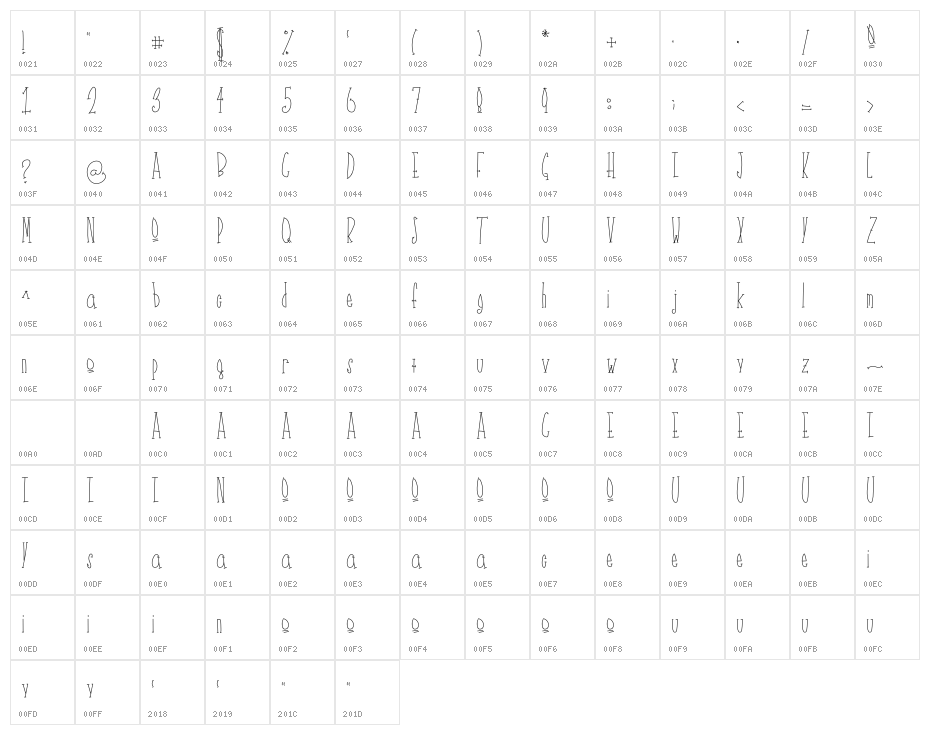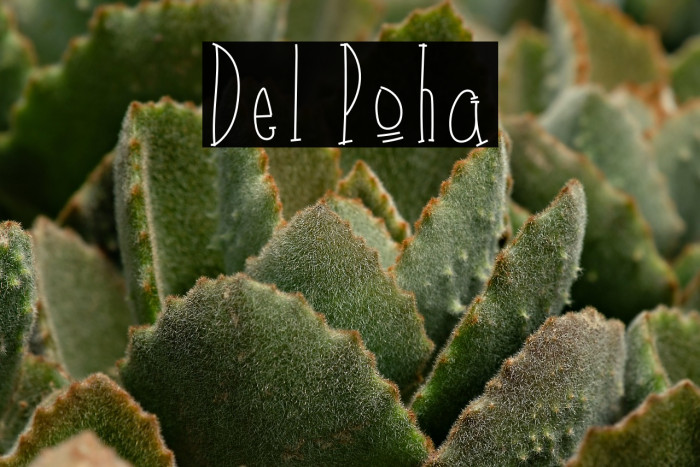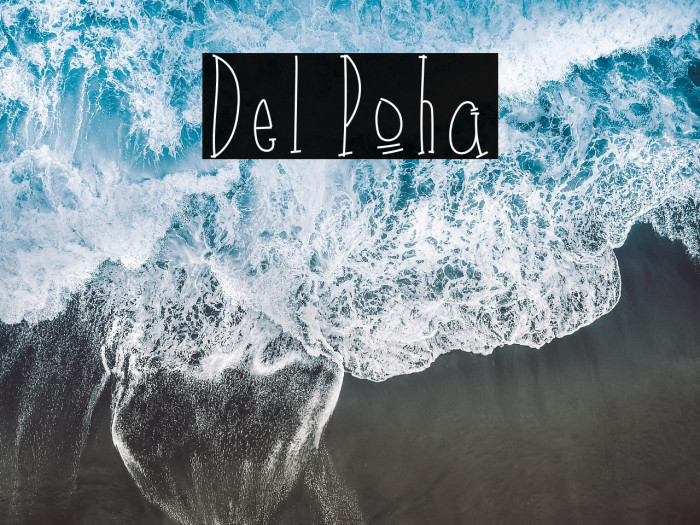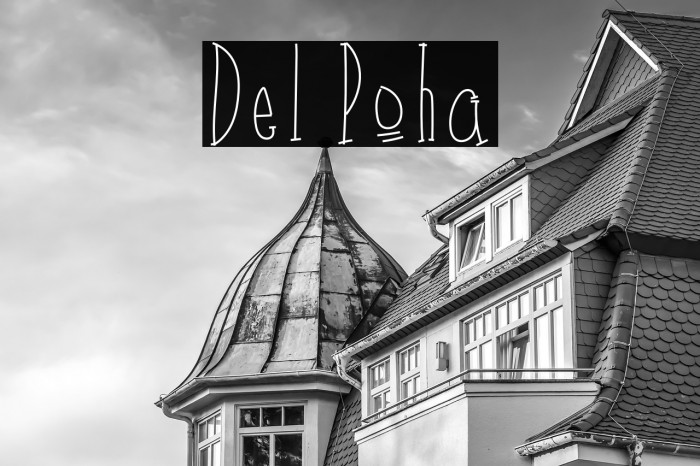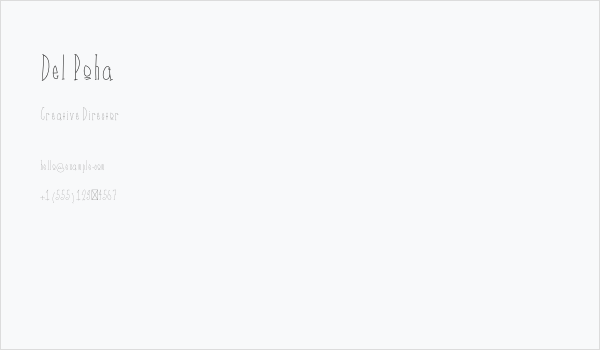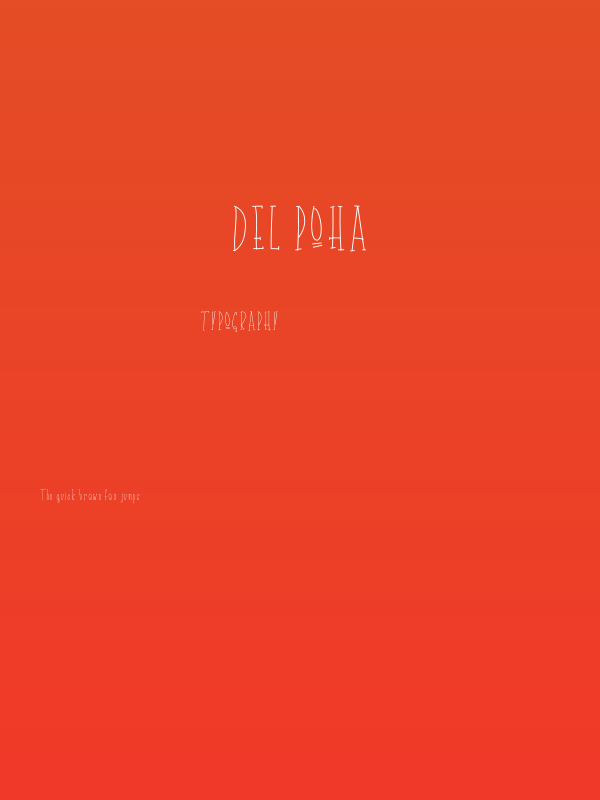
Del Poha Font
Del Poha Description
This font features a whimsical and playful design with tall, narrow characters that have a hand-drawn appearance. The uppercase letters are elongated with slight variations in stroke width, giving them a quirky and artistic feel. The lowercase letters maintain this playful style, with some characters having unique flourishes and loops. Numbers and special characters follow the same aesthetic, adding to the overall charm. This font's irregularities and distinctive style make it stand out, perfect for creative and informal applications.
| Overall Style | Playful, Artistic |
| Use Case | Headlines, Creative projects |
| Proposed Projects | Ideal for children's books, greeting cards, playful branding, and creative posters. |